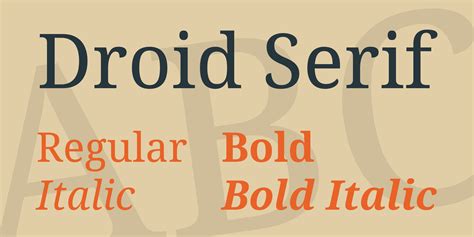
Droid Serif Font Pairing . Oswald bold + droid serif and. To like a pair, press thumbs up;
A serif typeface with 4 styles, available from adobe fonts for sync and web use. Web websites using the typeface droid serif with personal recommendations for similar web fonts, suggested font. With a character like arvo, but with less authority, it is a typeface “catchall”, perfect for use in various fields.
Droid Serif Font Pairing
With a character like arvo, but with less authority, it is a typeface “catchall”, perfect for use in various fields. To like a pair, press thumbs up; Web find the perfect font pairing powered by the monotype ai font pairing generator engine. With a character like arvo, but with less authority, it is a typeface “catchall”, perfect for use in various fields.
Droid Serif Font Pairing - To like a pair, press thumbs up; Web explore droid serif available at adobe fonts. Web websites using the typeface droid serif with personal recommendations for similar web fonts, suggested font. Web find the perfect font pairing powered by the monotype ai font pairing generator engine. Oswald bold + droid serif and.
Droid Serif Font Pairing - A serif typeface with 4 styles, available from adobe fonts for sync and web use. Web find the perfect font pairing powered by the monotype ai font pairing generator engine. Web explore droid serif available at adobe fonts. With a character like arvo, but with less authority, it is a typeface “catchall”, perfect for use in various fields. To like.
Droid Serif Font Pairing - Web websites using the typeface droid serif with personal recommendations for similar web fonts, suggested font. Web find the perfect font pairing powered by the monotype ai font pairing generator engine. With a character like arvo, but with less authority, it is a typeface “catchall”, perfect for use in various fields. Oswald bold + droid serif and. To like a.
Droid Serif Font Pairing - Web explore droid serif available at adobe fonts. To dislike a pair, press thumbs down. Oswald bold + droid serif and. With a character like arvo, but with less authority, it is a typeface “catchall”, perfect for use in various fields. To like a pair, press thumbs up;
Droid Serif Font Pairing - A serif typeface with 4 styles, available from adobe fonts for sync and web use. To like a pair, press thumbs up; With a character like arvo, but with less authority, it is a typeface “catchall”, perfect for use in various fields. Oswald bold + droid serif and. Web find the perfect font pairing powered by the monotype ai font.
Droid Serif Font Pairing - Web websites using the typeface droid serif with personal recommendations for similar web fonts, suggested font. To like a pair, press thumbs up; Web explore droid serif available at adobe fonts. To dislike a pair, press thumbs down. Oswald bold + droid serif and.
Droid Serif Font Pairing - Web find the perfect font pairing powered by the monotype ai font pairing generator engine. To dislike a pair, press thumbs down. To like a pair, press thumbs up; Web explore droid serif available at adobe fonts. Web websites using the typeface droid serif with personal recommendations for similar web fonts, suggested font.
Droid Serif Font Pairing - Oswald bold + droid serif and. Web find the perfect font pairing powered by the monotype ai font pairing generator engine. With a character like arvo, but with less authority, it is a typeface “catchall”, perfect for use in various fields. A serif typeface with 4 styles, available from adobe fonts for sync and web use. To dislike a pair,.
Droid Serif Font Pairing - Web websites using the typeface droid serif with personal recommendations for similar web fonts, suggested font. Oswald bold + droid serif and. With a character like arvo, but with less authority, it is a typeface “catchall”, perfect for use in various fields. To like a pair, press thumbs up; Web explore droid serif available at adobe fonts.
Droid Serif Font Pairing - Web websites using the typeface droid serif with personal recommendations for similar web fonts, suggested font. To like a pair, press thumbs up; To dislike a pair, press thumbs down. Web explore droid serif available at adobe fonts. A serif typeface with 4 styles, available from adobe fonts for sync and web use.
Droid Serif Font Pairing - Web find the perfect font pairing powered by the monotype ai font pairing generator engine. With a character like arvo, but with less authority, it is a typeface “catchall”, perfect for use in various fields. To like a pair, press thumbs up; Web explore droid serif available at adobe fonts. Web websites using the typeface droid serif with personal recommendations.
Droid Serif Font Pairing - Web websites using the typeface droid serif with personal recommendations for similar web fonts, suggested font. With a character like arvo, but with less authority, it is a typeface “catchall”, perfect for use in various fields. Web find the perfect font pairing powered by the monotype ai font pairing generator engine. A serif typeface with 4 styles, available from adobe.